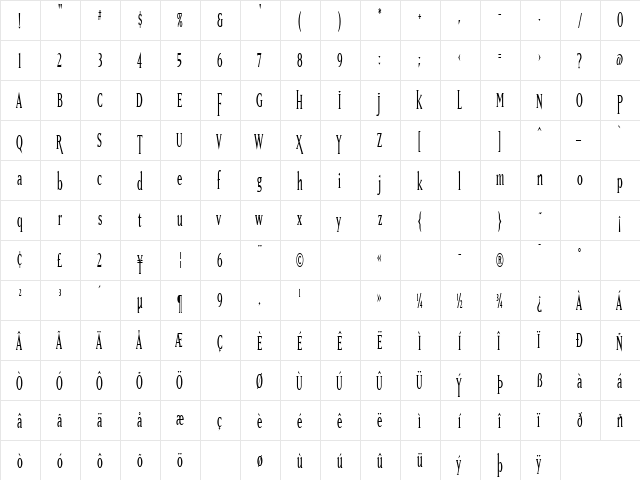
MatrixTallLining Regular
Design Context for MatrixTallLining Typeface
MatrixTallLining offers clean, dependable letterforms without strong stylistic allegiance, making it a practical choice for designers who need flexibility.
Pro Tip: Use MatrixTallLining in both headline and body roles to test its range before committing to a single application.